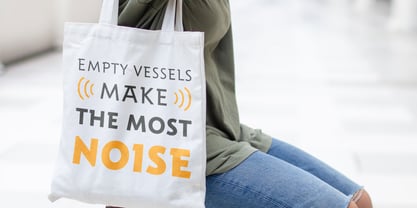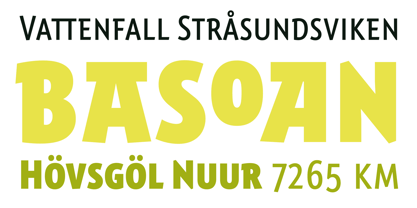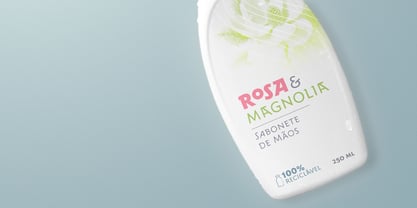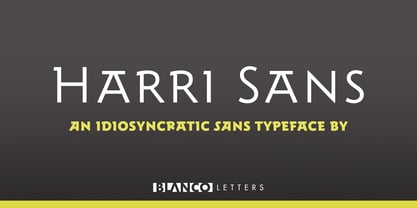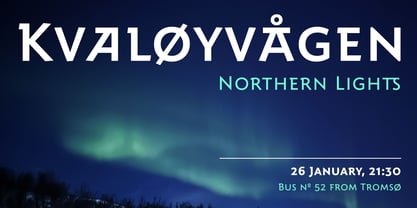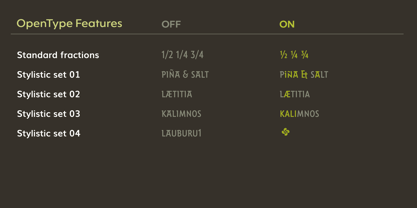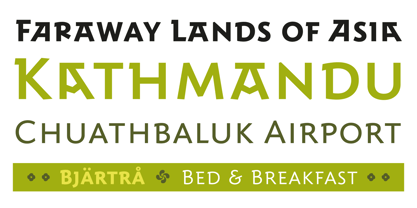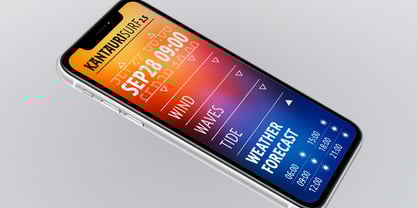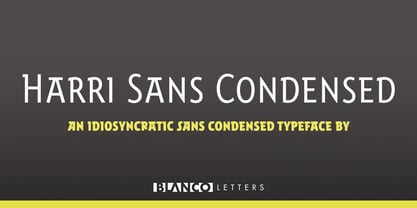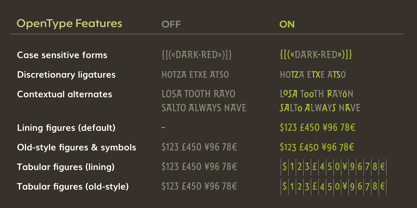
Harri Sans
by Blancoletters
The Harri Sans Font Family was designed by Juan Luis Blanco and published by Blancoletters. Harri Sans contains 10 styles and family package options. More about this family
Refining the graceful traits of the original Harri family, Harri Sans offers a linear, robust, and modern aesthetic. By straightening the Basque-inspired flares into clean stems and serifs, it blends humanist proportions with a geometric touch. The result is a stylish, versatile sans serif that strikes a perfect balance between tradition and modernity. Harri Sans Condensed packs this clarity into a slim profile. Because it shares identical metrics with its predecessor, Harri Condensed, you can swap styles seamlessly without disrupting your layout. Both versions offer rich alternates and ligatures, providing a precise, powerful voice for everything from packaging to digital interfaces.
Blancoletters is a Basque Country-based independent type foundry specializing in quality-type projects, both custom and retail. Blancoletters is the commercial name of Juan Luis Blanco, a graphic designer, type designer, and calligrapher based in Zumaia (Basque Country). He has specialized in multi-script font families comprising Latin, Greek, Cyrillic, Arabic, and Tifinagh scripts. Currently, he combines typography and calligraphy workshops with typographic projects, focusing on the Basque lettering style and multi-script typefaces.